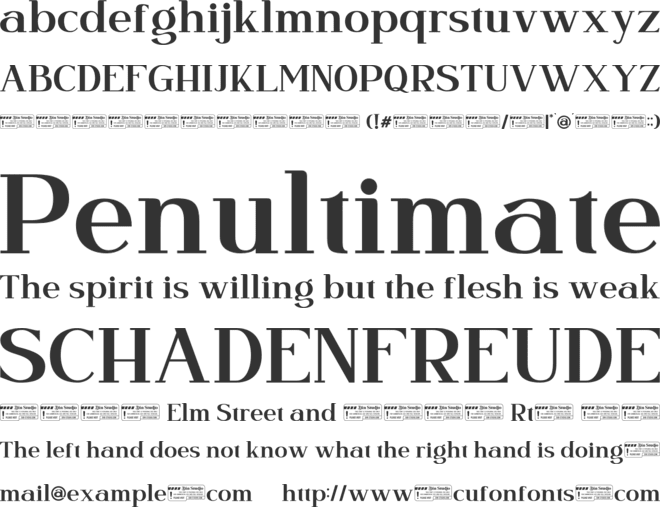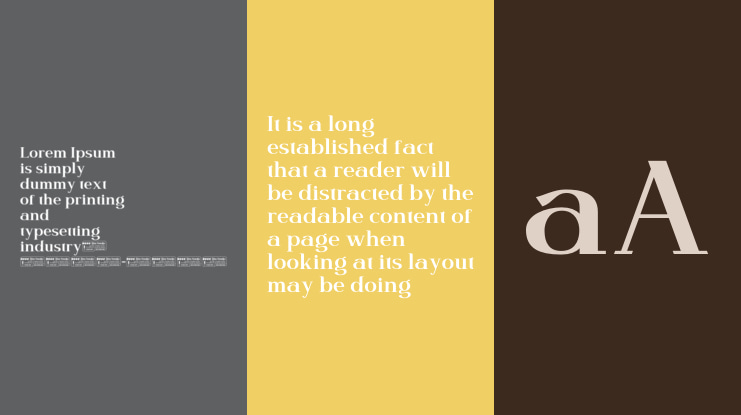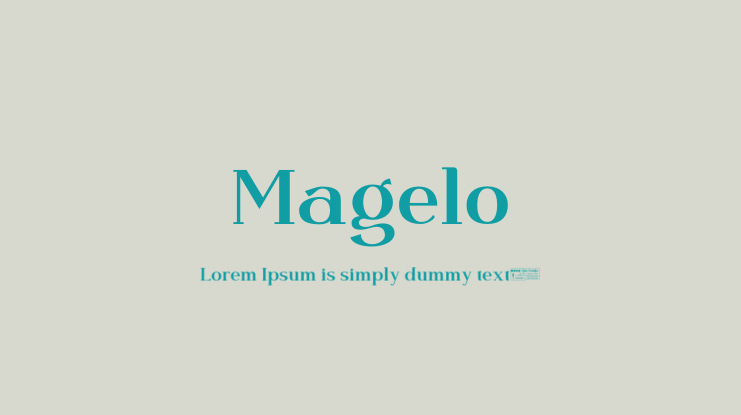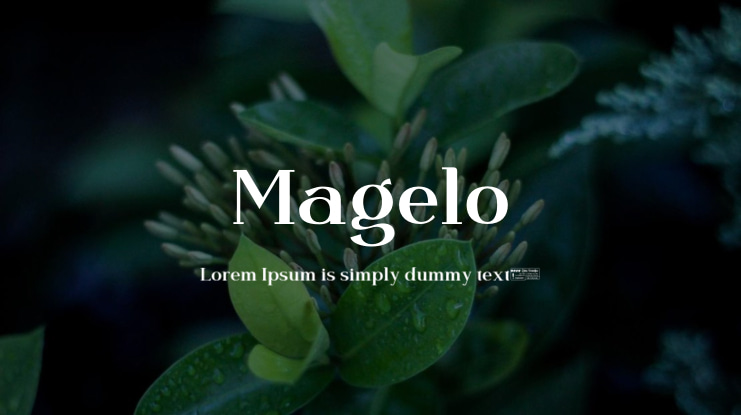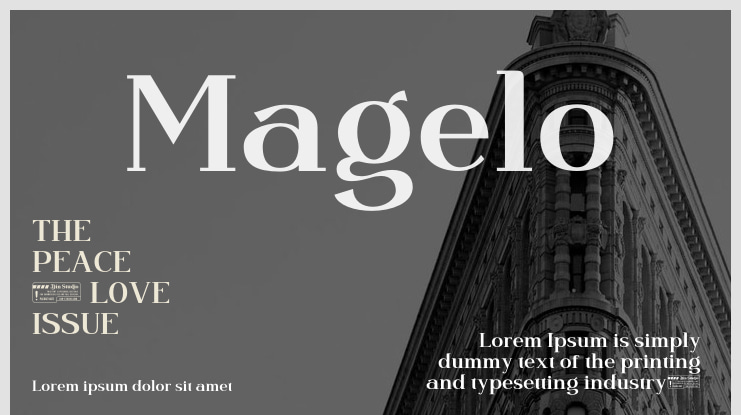
Magelo Font
Are you ready to make your branding bold? Looking for a statement font that will engage your audience? A font which makes your branding stand out? Then we’ve got the answer: Magelo – A Serif Font Family.
Magelo font preview